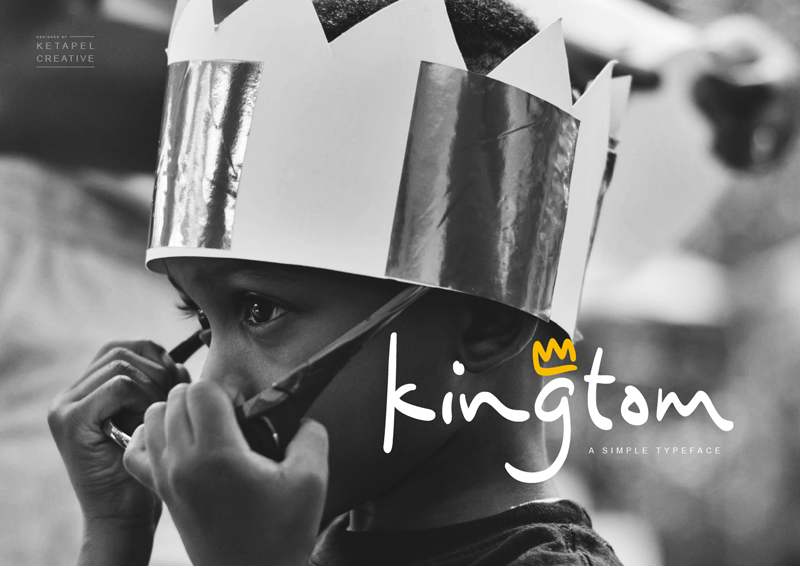
kingtom is a cute and casual handwritten font with an incredibly friendly feel. This fantastic font is best suited for headlines of all sizes, as well as for blocks of text that have both maximum and minimum variations. Included in uppercase, lowercase, standard numbers & punctuation, multilingual support. *This font is demo version free for personal use. Please visit https://www.creativefabrica.com/designer/ketapelcreative/ref/237095 to purchase commercial license and more other products. download & enjoy !! *Contact me : ketapelcreative@gmail.com Thanks for downloading this fonts. Best Regards |